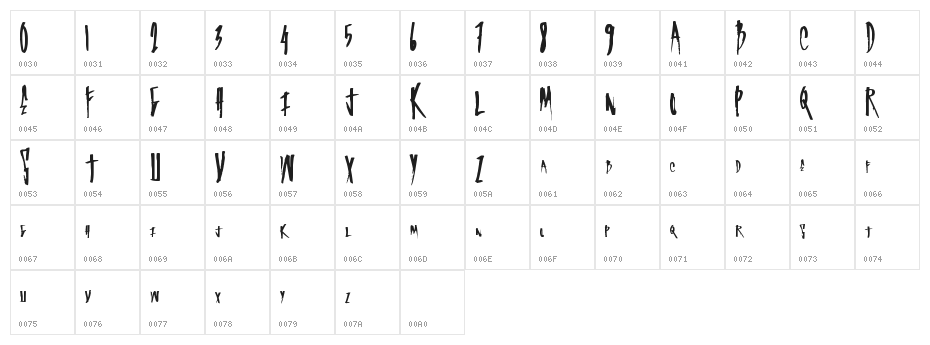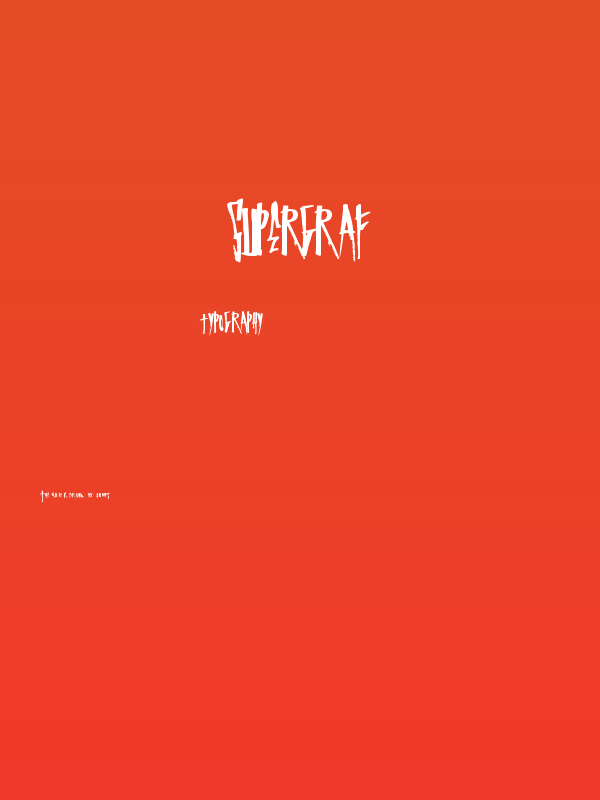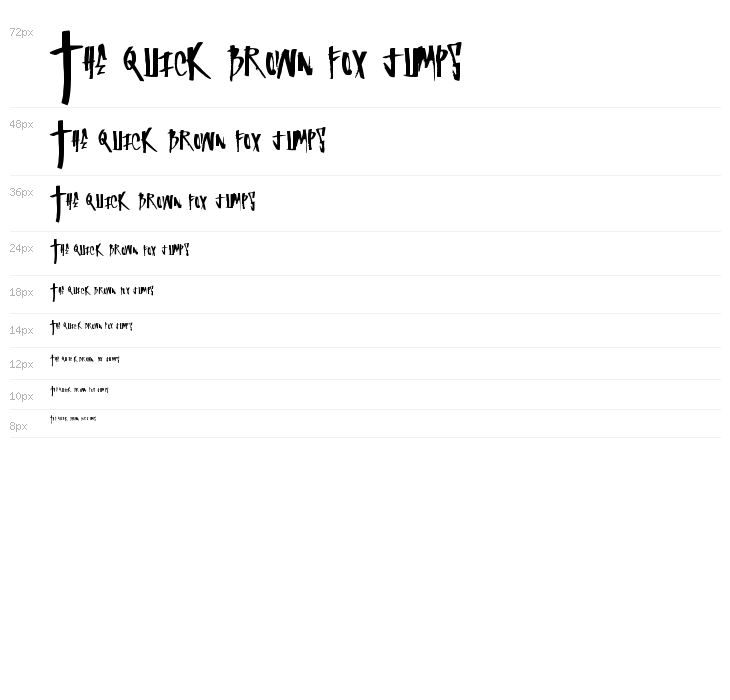
SuperGraf Font
SuperGraf Description
This font features a bold and edgy design with sharp, angular strokes that give it a graffiti-like appearance. The letters are irregular and dynamic, with varying heights and widths that create a sense of movement and energy. The uppercase and lowercase letters maintain a consistent style, while the numbers and special characters complement the overall aesthetic. This font's unique and artistic flair makes it stand out, ideal for projects that require a strong visual impact.
| Overall Style | Modern, Urban |
| Proposed Projects | Perfect for street art designs, edgy posters, music album covers, and urban-themed branding. |